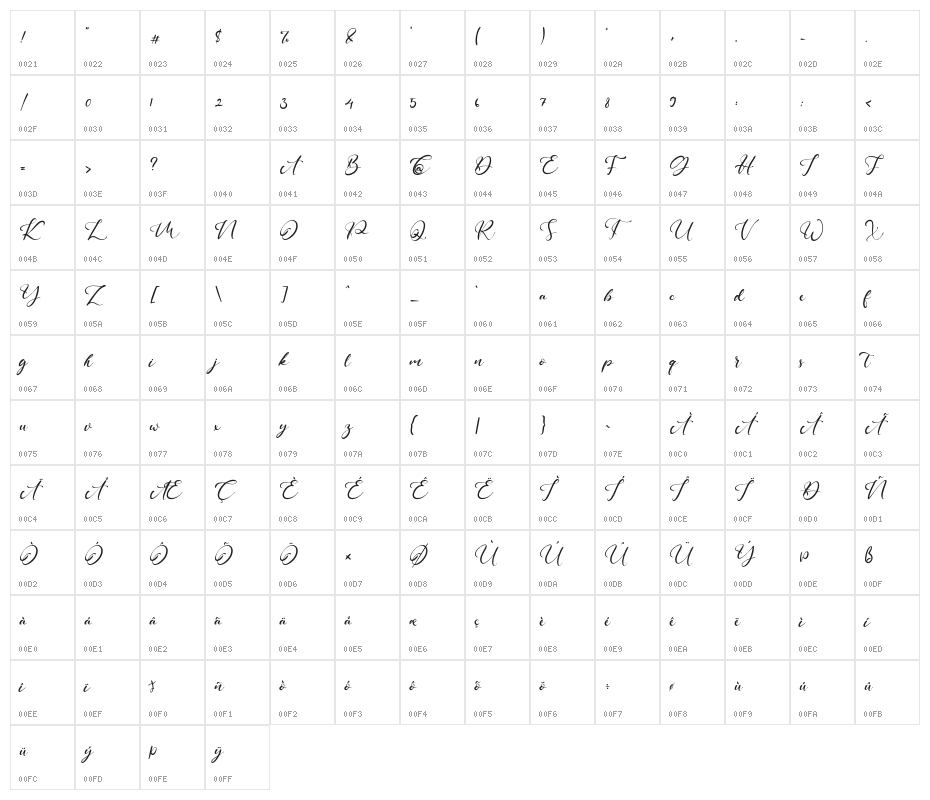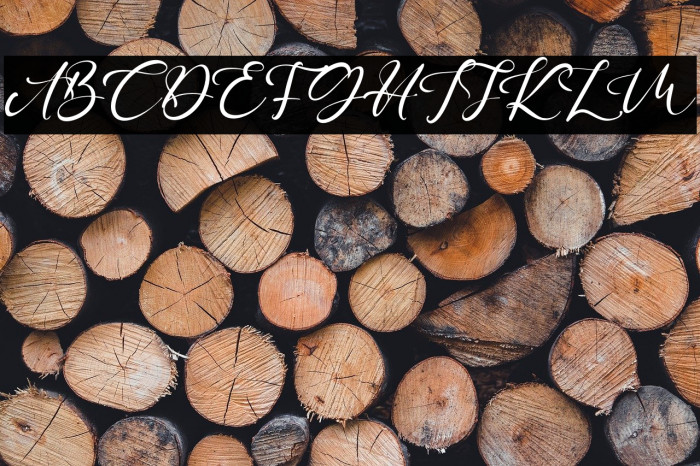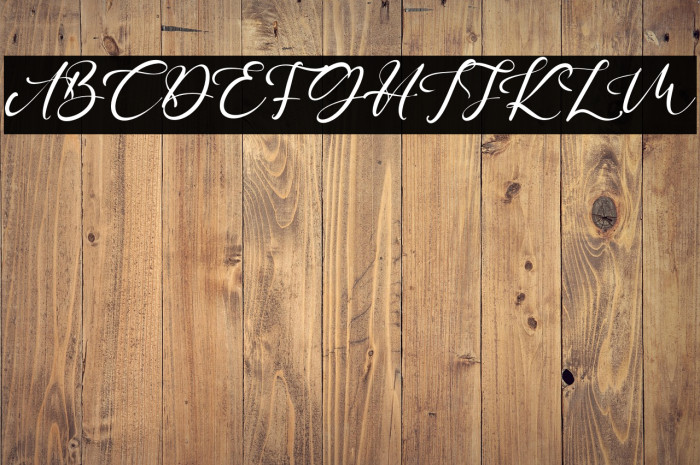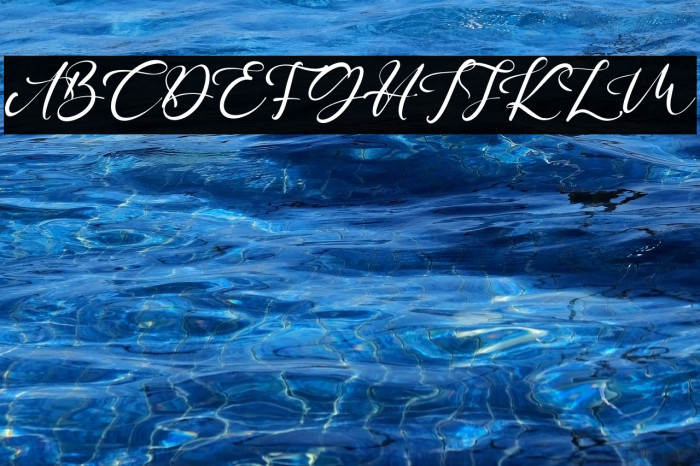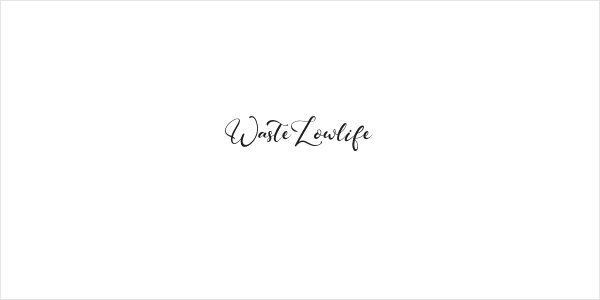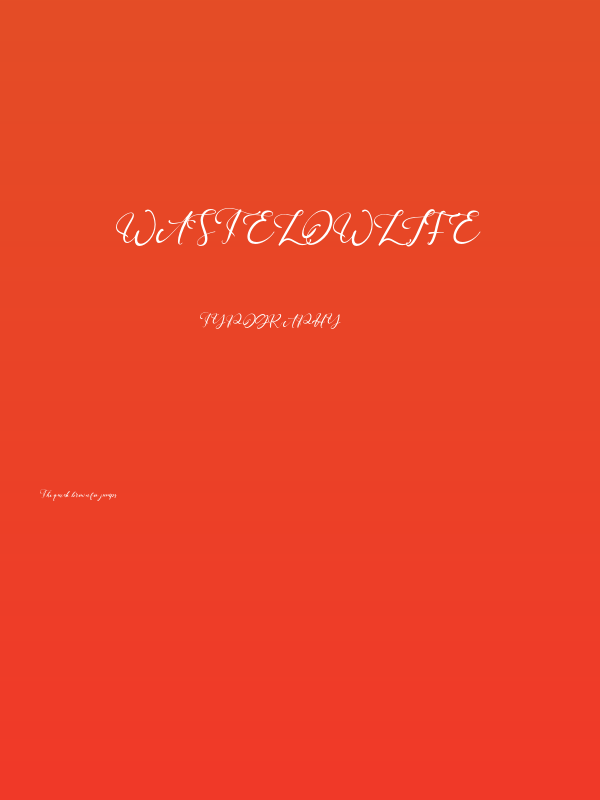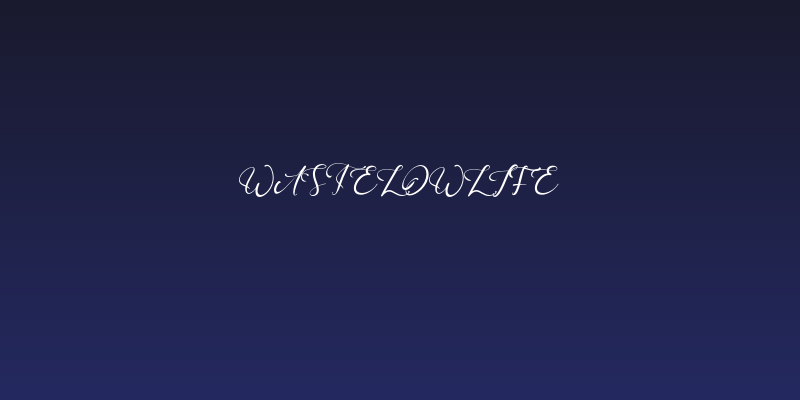
WasteLowlife Font
WasteLowlife Description
This elegant script font features flowing, cursive letterforms with a sophisticated flair. The uppercase letters are characterized by their sweeping curves and intricate loops, giving a sense of movement and grace. The lowercase letters maintain a consistent style, with smooth connections between characters that enhance readability while preserving the decorative nature of the script. The numerals and special characters are designed to complement the overall aesthetic, ensuring a cohesive look across all text elements. This font is ideal for projects that require a touch of elegance and sophistication, such as wedding invitations, formal event programs, or luxury branding materials.
| Use Case | Headlines, Invitations, Branding |
| Proposed Projects | Wedding invitations, formal event programs, luxury branding materials. |